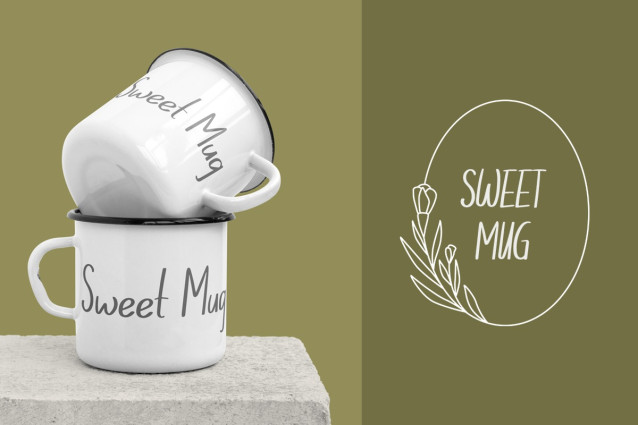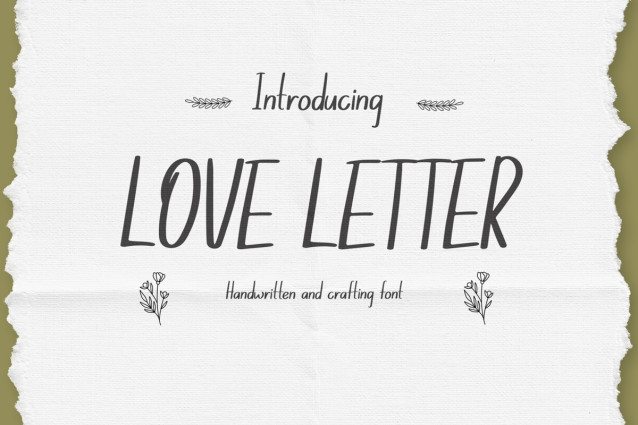
Love Letter Font
Love Letter Font, a playful script font inspired by the whimsical charm of handwritten notes. Its flowing curves and gentle flourishes add a touch of personality to any project, whether it’s a heartfelt letter, a vibrant invitation, or a captivating social media post.
Love Letter is more than just a pretty face. It’s versatile and adaptable, working beautifully for logos, quotes, packaging, branding, and more. Let your creativity flow with a font that speaks from the heart and leaves a lasting impression.